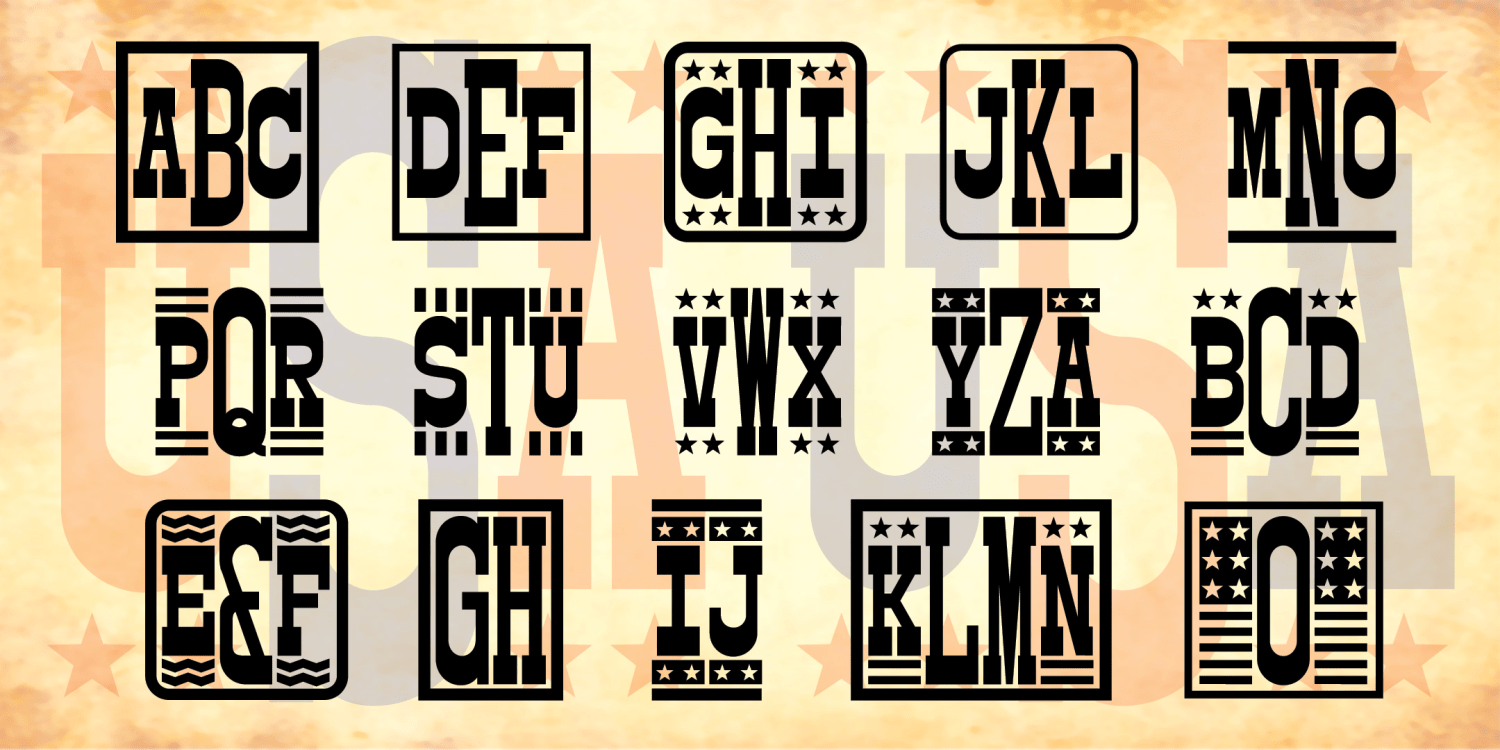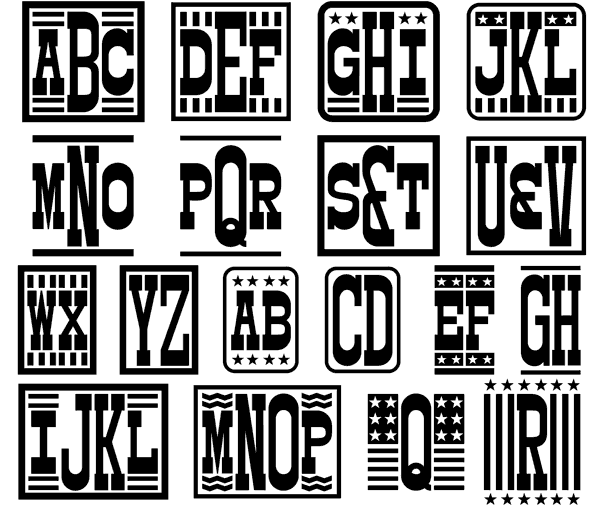
American Monograms
AMERICAN MONOGRAMS is a unique font to make custom 1-, 2-, 3-, or 4-letter monograms in a bold Western woodtype style with a choice of optional stars and stripes decorations.